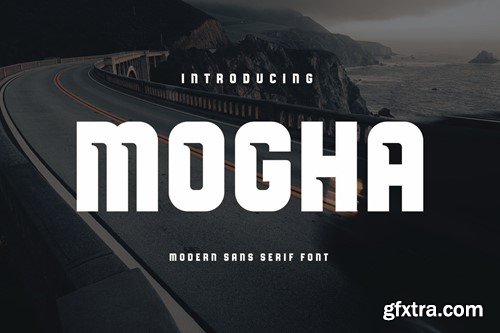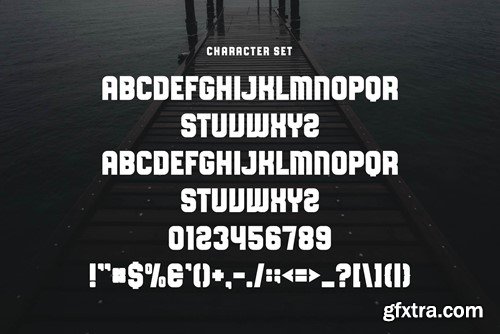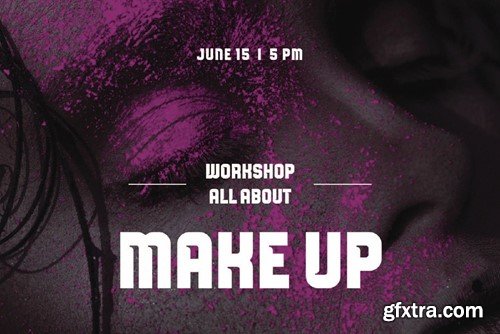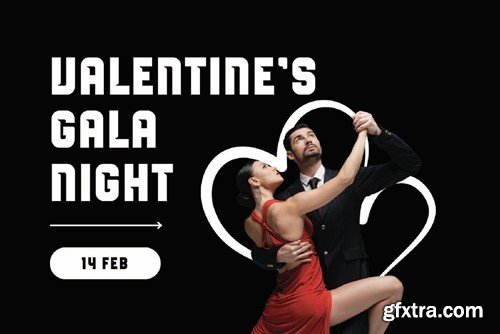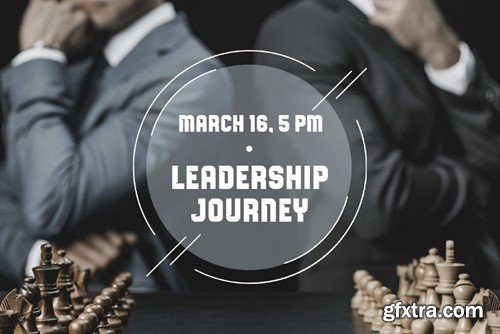
Mogha - Sans Serif Font
Mogha Sans Font Typeface inspired by the famous minimalist logo perfect for the purposes of designing templates, brochures, videos, advertising branding, logos, invitation, layout design, elegant crafting, beauty design and other. What's Included : Accessible in the Adobe Illustrator, Adobe Photoshop, Adobe InDesign, even work on Microsoft Word. PUA Encoded Characters Thank You